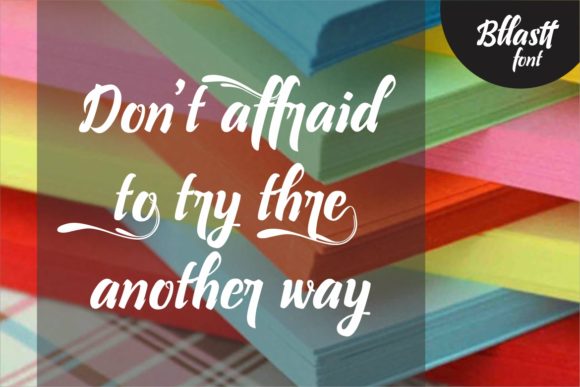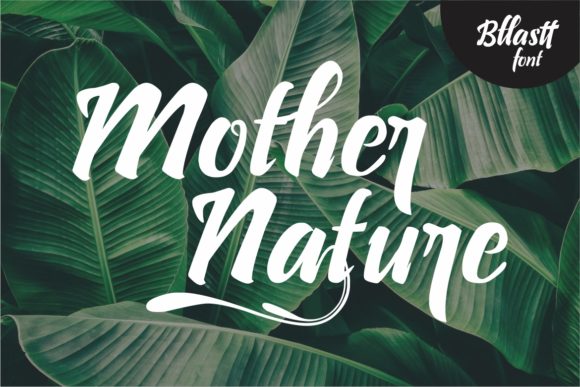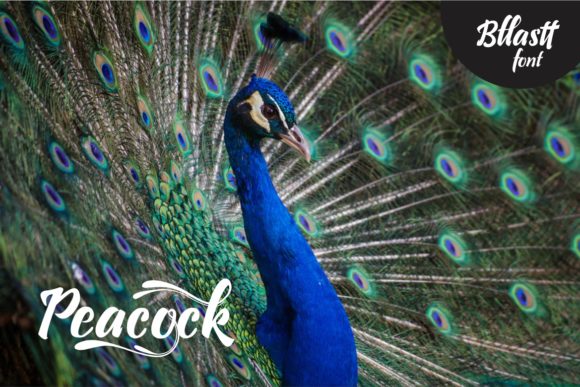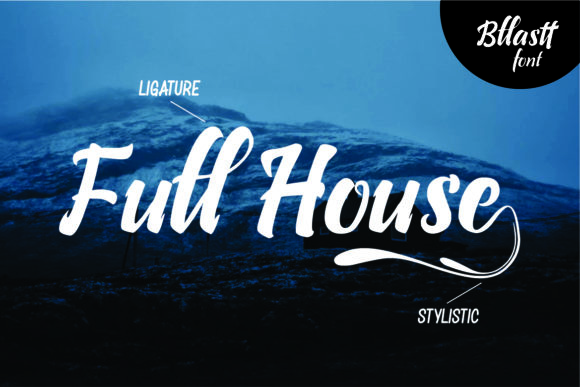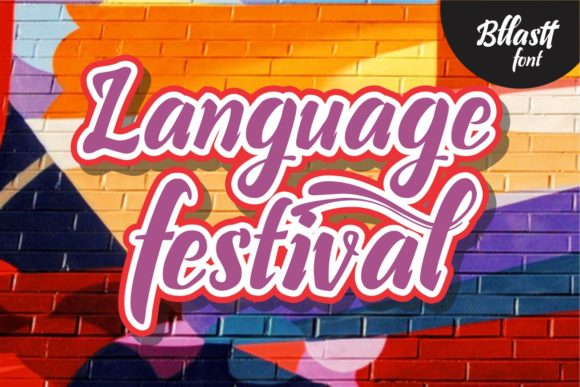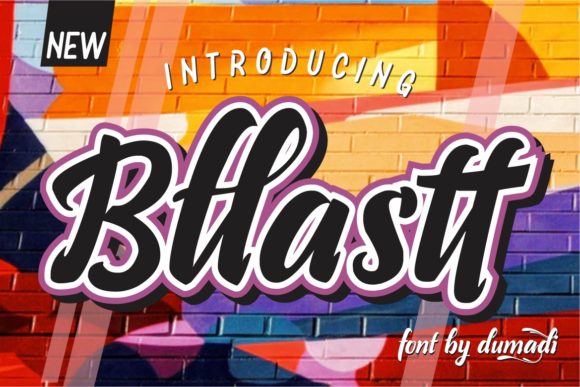
Bllastt Font: Elevate Your Designs with a Unique and Personal Touch
In the world of design, typography plays a crucial role in conveying messages, expressing creativity, and setting the tone for a brand or project. With countless font options available, finding the perfect one that adds a unique and personal flavor to your design can be a daunting task. This is where Bllastt Font comes into play, an ideal display font designed to transform your design ideas into stunning visual experiences.
What Makes Bllastt Font Stand Out?
Bllastt Font is not just another addition to the vast sea of typefaces. It’s a meticulously crafted display font that brings a fresh and distinctive vibe to the table. Its unique characteristics make it an excellent choice for designers and crafters looking to add a personal touch to their projects. Here are a few reasons why Bllastt Font should be on your radar:
- Unique and Personal Flavor: Bllastt is designed to add a unique and personal flavor to any design idea. Its distinctiveness ensures that your projects stand out from the crowd, making it perfect for designers who aim to leave a lasting impression.
- Versatility: Whether you’re working on a branding project, crafting a poster, designing a website, or creating engaging social media content, Bllastt Font adapts seamlessly. Its versatility makes it a valuable asset in any designer’s toolkit.
- Ease of Use: Despite its unique appearance, Bllastt Font is easy to read and use across various platforms. This ensures that your designs are not only visually appealing but also accessible to a broad audience.
- Customization: Bllastt offers a range of customization options, allowing designers to tweak and adjust the font to fit their specific needs. This level of flexibility is invaluable for projects that require a tailored approach.
Applications of Bllastt Font
The applications of Bllastt Font are vast and varied. Here are some of the most notable areas where this font can make a significant impact:
- Branding and Logos: Create memorable brand identities with Bllastt’s unique charm. Its distinctive style ensures that your logo stands out and resonates with your target audience.
- Advertising and Marketing Materials: From billboards to brochures, Bllastt Font can elevate your advertising and marketing materials, making them more engaging and effective.
- Digital Media: Enhance your digital presence with Bllastt Font. It’s perfect for website headers, social media graphics, and any digital content that requires a bold and personal touch.
- Packaging: Make your products stand out on the shelves with eye-catching packaging designs powered by Bllastt Font.
Tips for Using Bllastt Font Effectively
To get the most out of Bllastt Font, consider the following tips:
- Pair it Wisely: Combine Bllastt Font with complementary fonts to create visual harmony and hierarchy in your designs.
- Experiment with Sizes and Weights: Don’t be afraid to experiment with different sizes and weights of Bllastt Font to add depth and emphasis to your designs.
- Consider Your Audience: Ensure that Bllastt Font aligns with the tone and preferences of your target audience, enhancing the overall effectiveness of your design.
Bllastt Font is more than just a display font; it’s a tool for designers and crafters to infuse their projects with a unique and personal flavor. Its versatility, ease of use, and customization options make it an invaluable asset for anyone looking to elevate their designs. Whether you’re a professional designer or a DIY enthusiast, Bllastt Font offers the perfect blend of style and functionality to bring your creative visions to life.